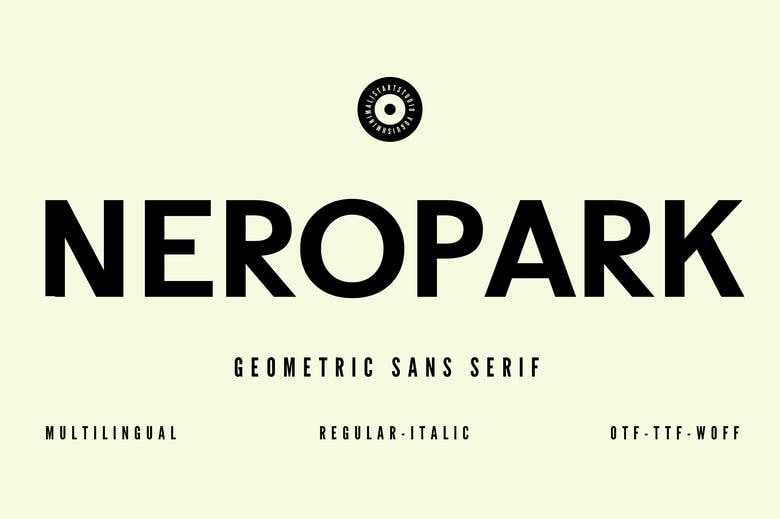
Neropark Font
Neropark is a sans serif geometric typefaces that are within the minimalist text classification. No element of design is out of place where this font’s smooth lines and its carefully proportioned lettering create a modern appeal effortlessly. This helium design can also be used in logo designs, branding, and everything in between.
Available in variety of weights and styles to make stunning designs. Sharp and clean regardless of the scale used, Neropark allows you to share your thoughts credibly and artistic. Modern Space, which distinguishes the designs of Neropark, will allow you to reach new heights.
Neropark Sans Serif Font